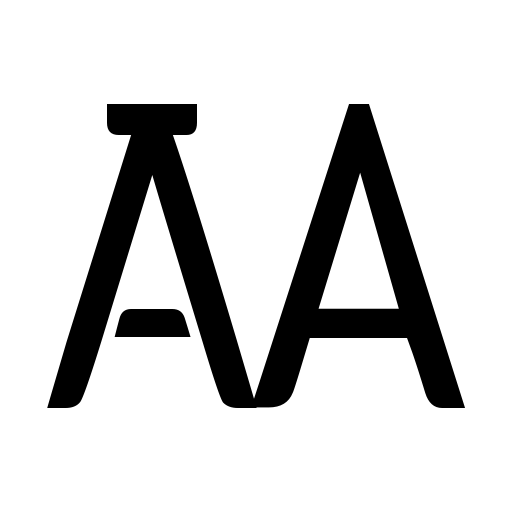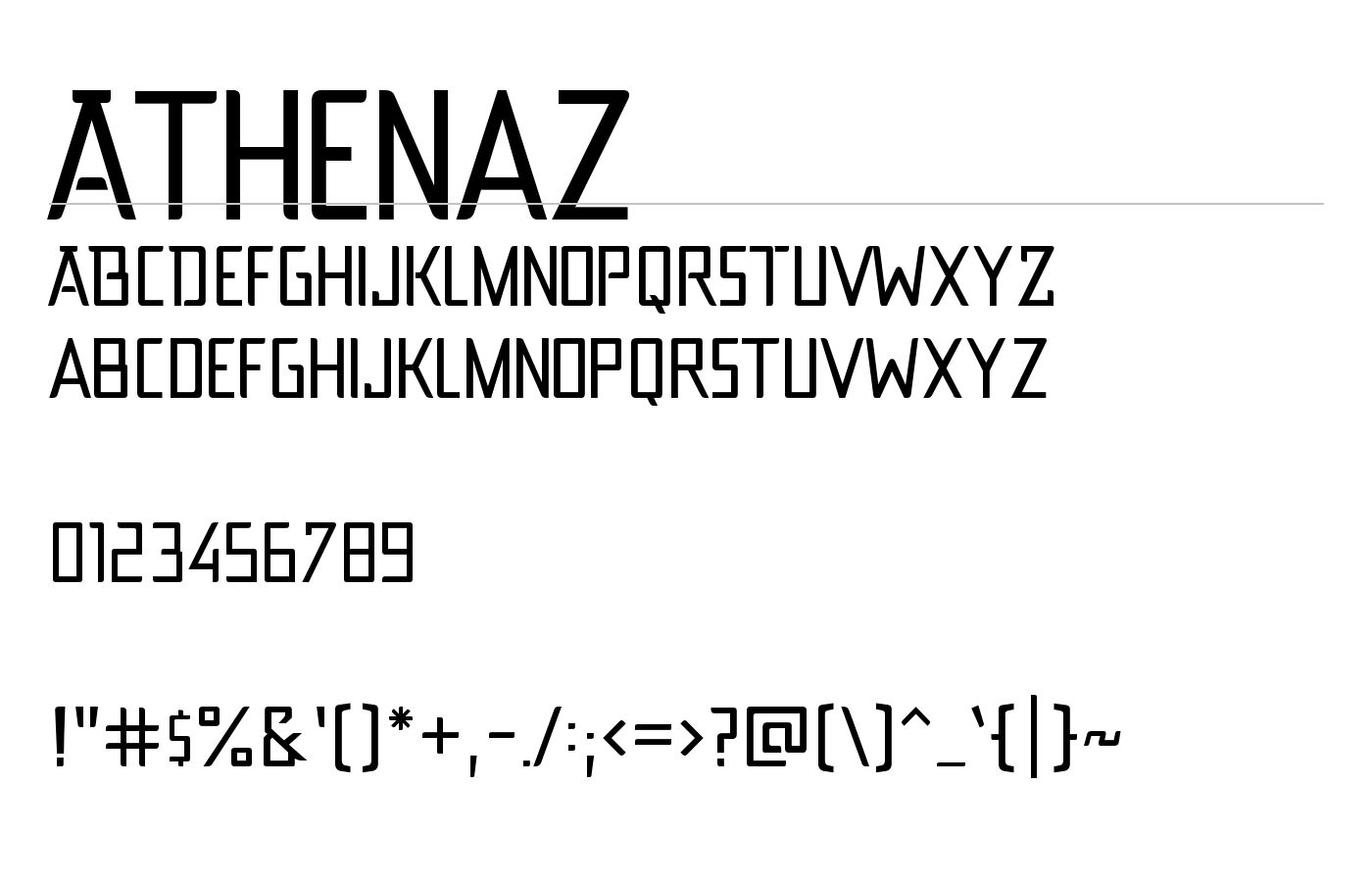
Athenaz is a distinctive sans serif font with a narrow, condensed structure and a modern, geometric feel. Its clean, angular letterforms and subtle stroke contrast lend it a sleek and technical appearance, making it ideal for contemporary branding, headlines, and editorial designs that seek a stylish yet professional look. This font’s unique character shapes add personality without sacrificing readability, perfect for fashion, tech, and innovative projects.
Athenaz Font
About Athenaz Font